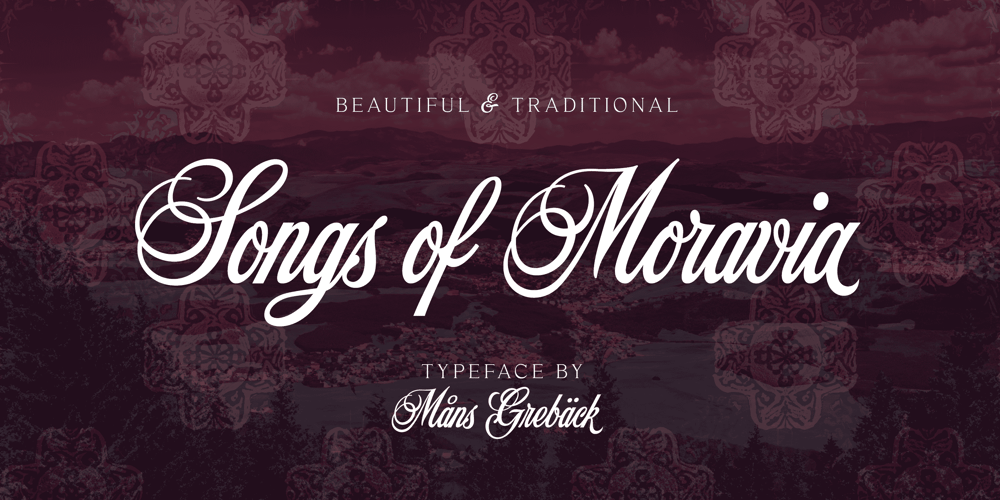
Songs of Moravia
Songs of Moravia font
Songs of Moravia Font Family was designed by Måns Grebäck and published by Mans Greback. Songs of Moravia contains 4 styles and family package options. Songs of Moravia is a beautiful script typeface. Its decorative capitals, adorned with delicate swashes and swirls, evoke the rich heritage and melodious charm of European design. Songs of Moravia captures the genuine spirit of folk tunes, offering a hint of tradition woven with modern craft, perfectly suited for projects that seek to marry the old with the new. Gentle yet vibrant, this type is a delightful choice for invitations and formal design. Use underscore _ to make a swash after any word, or multiple underscores for different lengths. Example: Baseball_